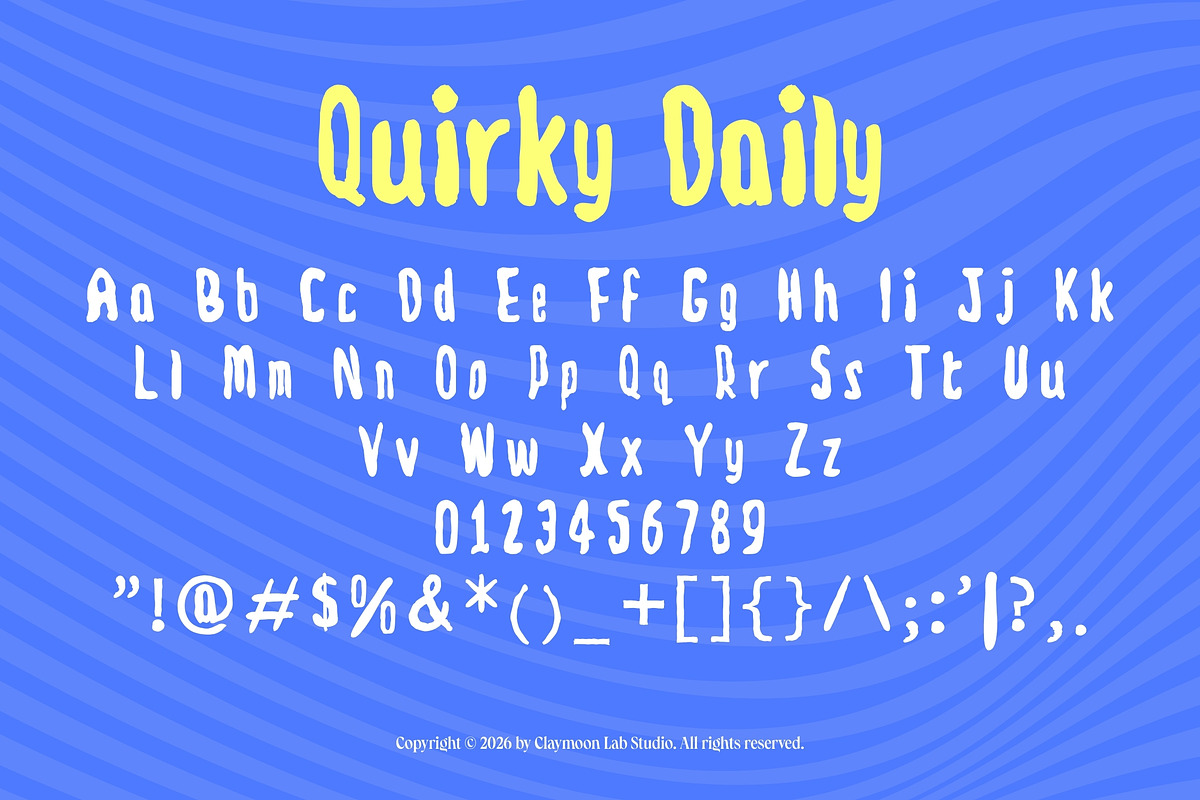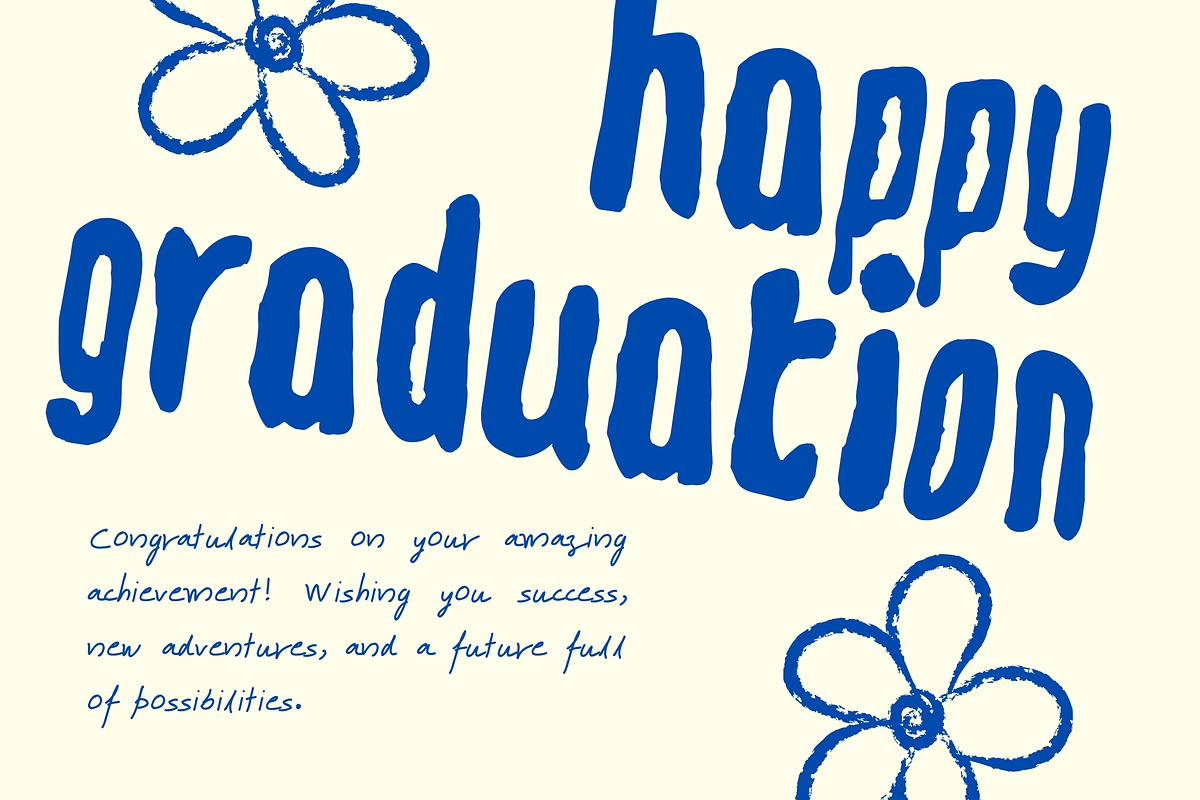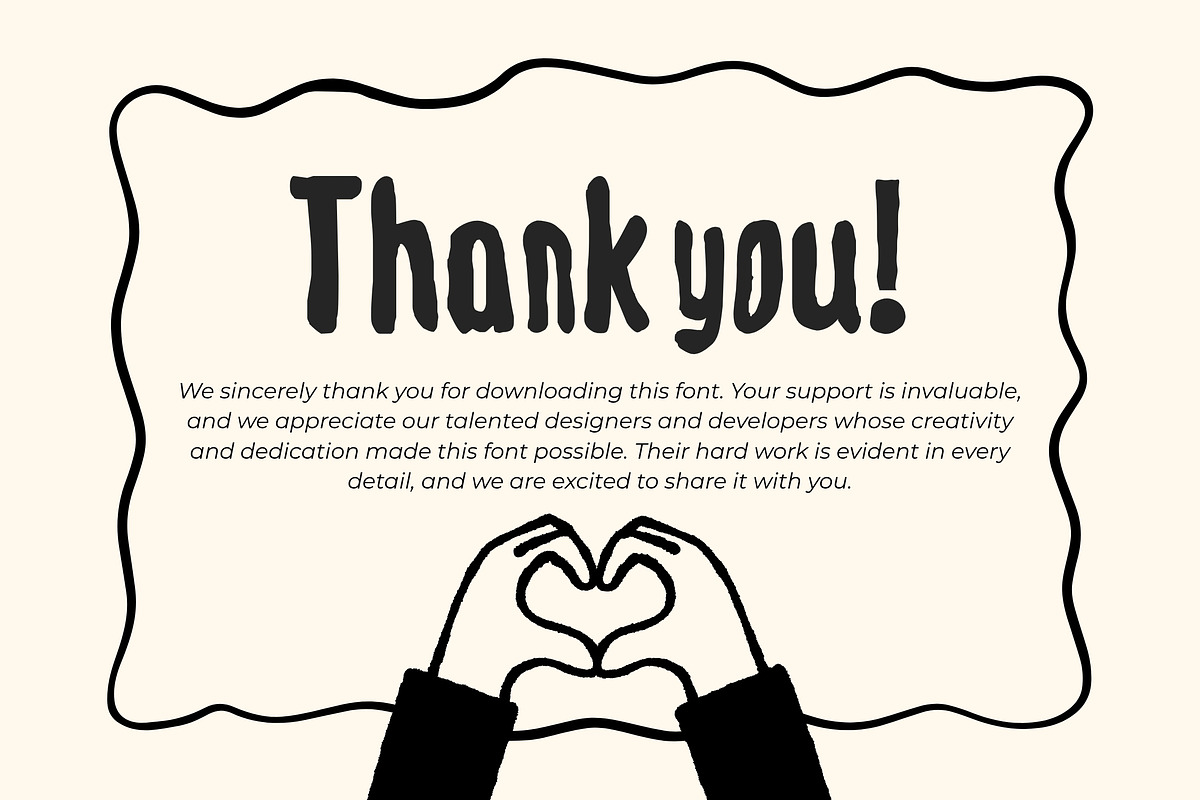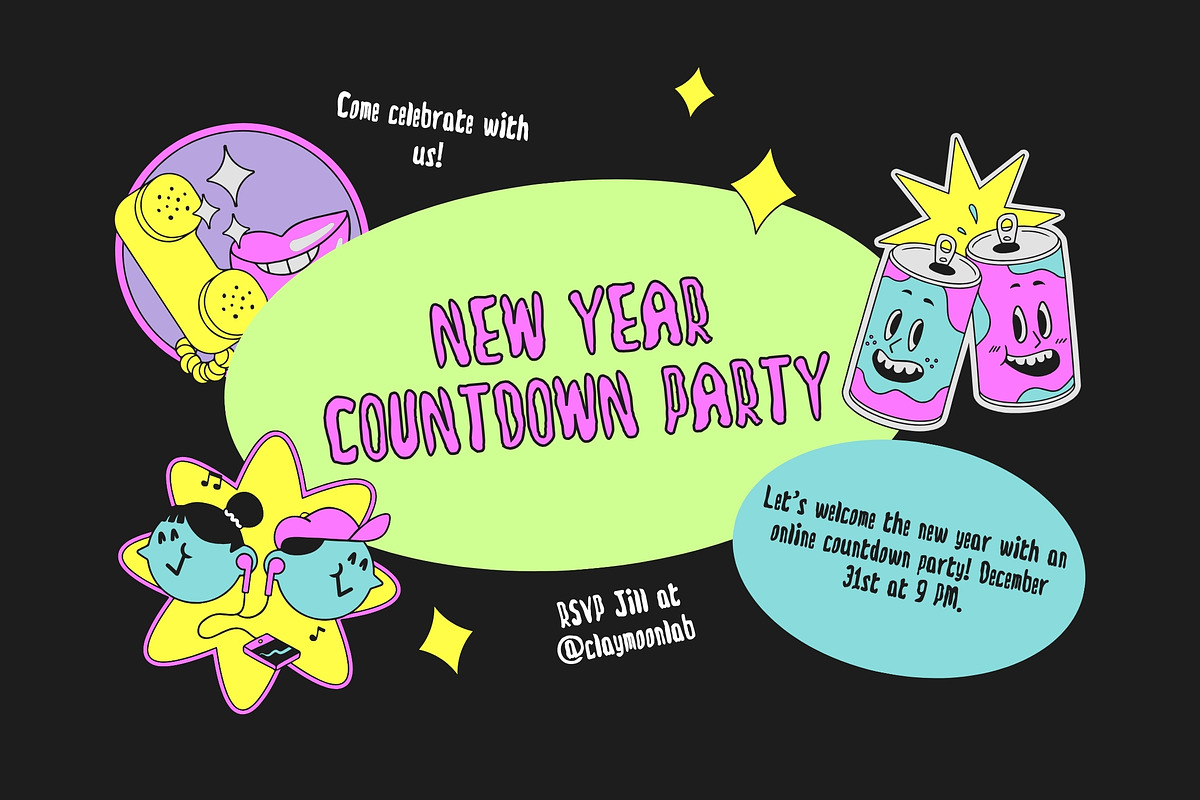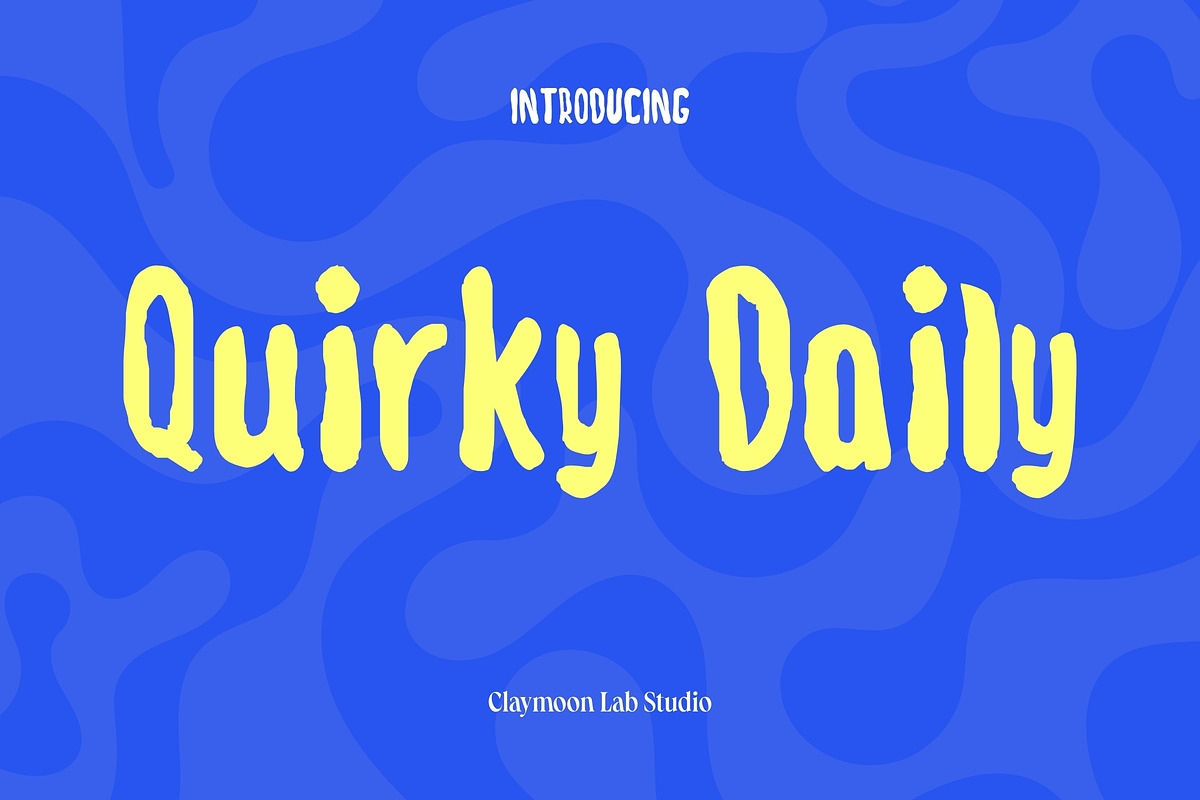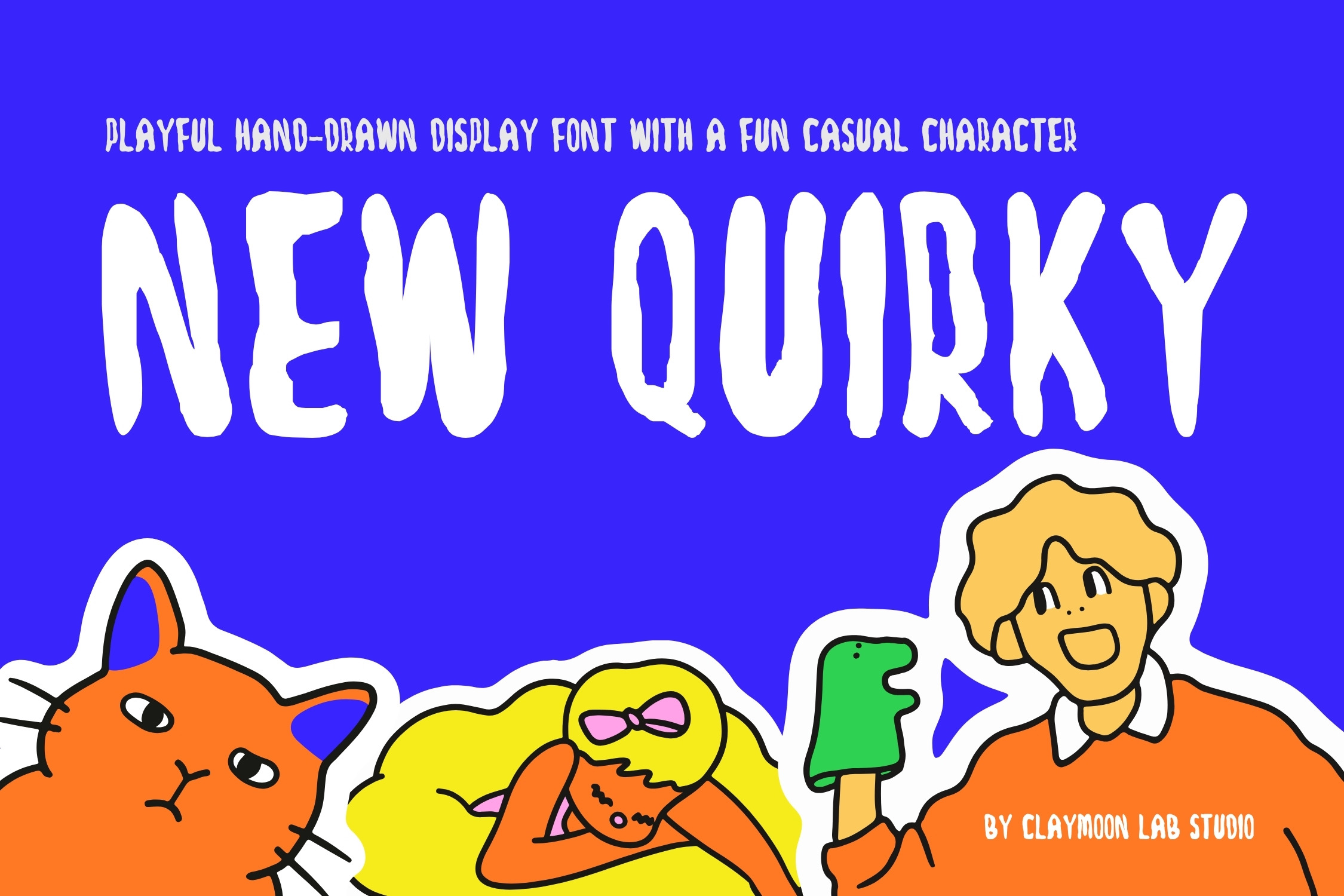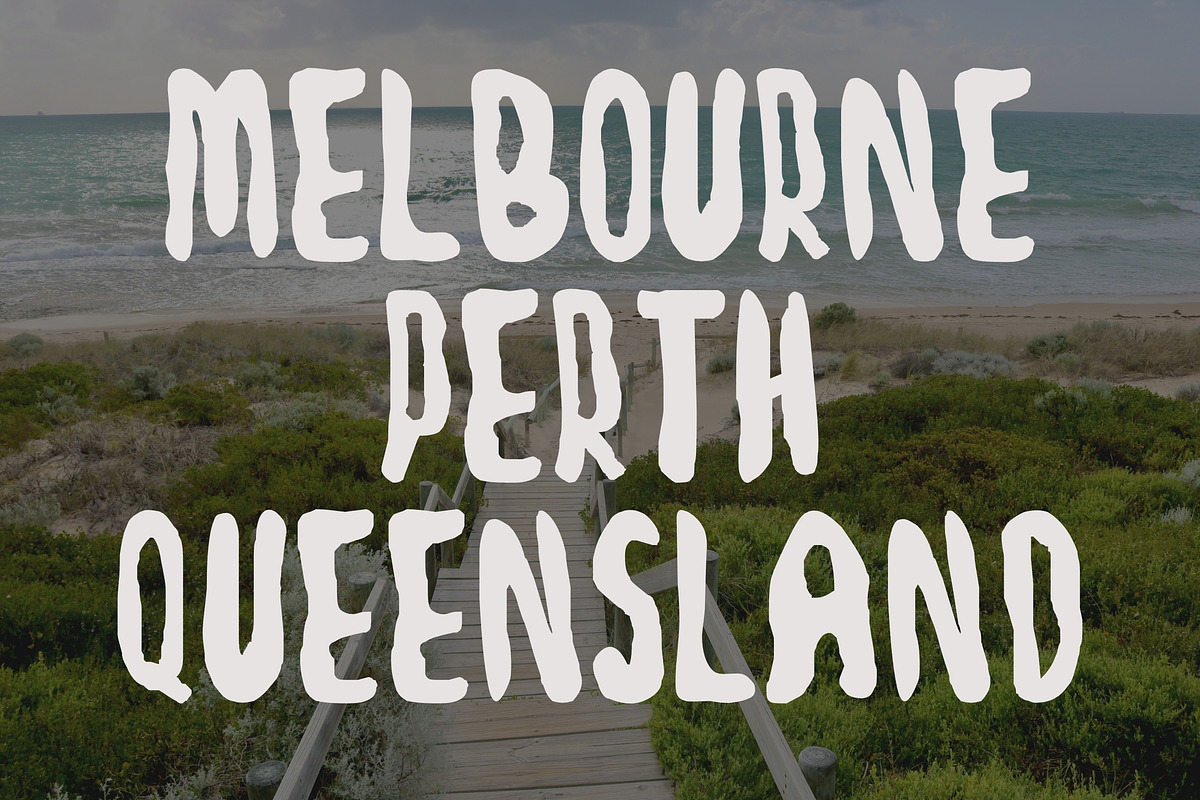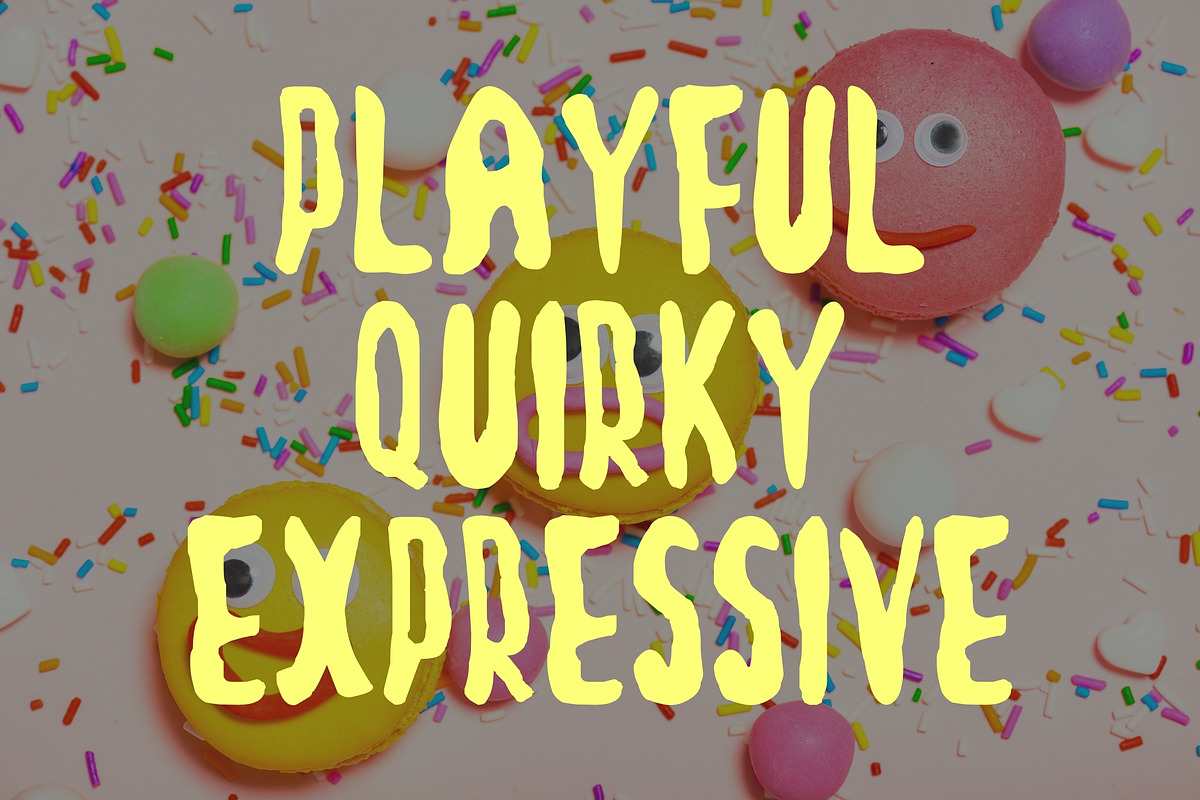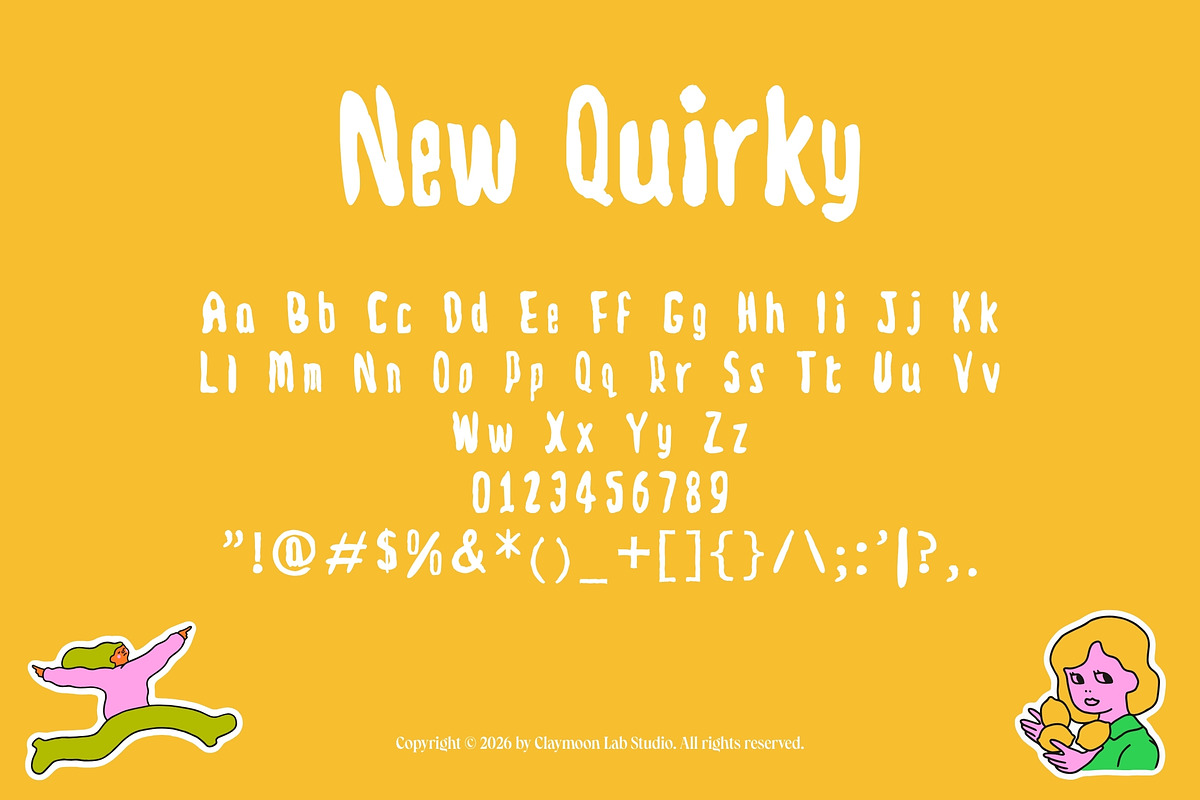
Quirky Daily — Playful Display Font
New Quirky — Playful Display Font
Bring a casual, fun, and energetic touch to your designs with Quirky, a playful display font crafted with a unique hand-drawn aesthetic. Featuring slightly irregular letterforms, organic tall proportions, and a cheerful handwritten feel, this font adds an instant splash of personality to any modern creative project.
Whether you are crafting engaging social media graphics, food menu layouts, greeting cards, or informal digital banners, Quirky brings a friendly, approachable vibe that feels warm and authentic.
Full Character Set: Uppercase, lowercase, numerals, and standard punctuation.
Standard Latin Support: Broad language coverage for international creative projects.
Perfect For These Projects:
Branding & Logo Design: Crafting casual brand identities, informal badges, and friendly logotypes with distinct personality.
Digital & Social Media Content: Creating vibrant social media posts, story graphics, YouTube covers, and digital banners.
Menu & Food Branding: Designing playful restaurant menus, cafe signage, and culinary digital assets.
Postcards & Greeting Cards: Composing expressive travel postcards, event announcements, and friendly messaging.
Editorial & Book Layouts: Crafting informal headlines, children's book titles, and creative digital publications.